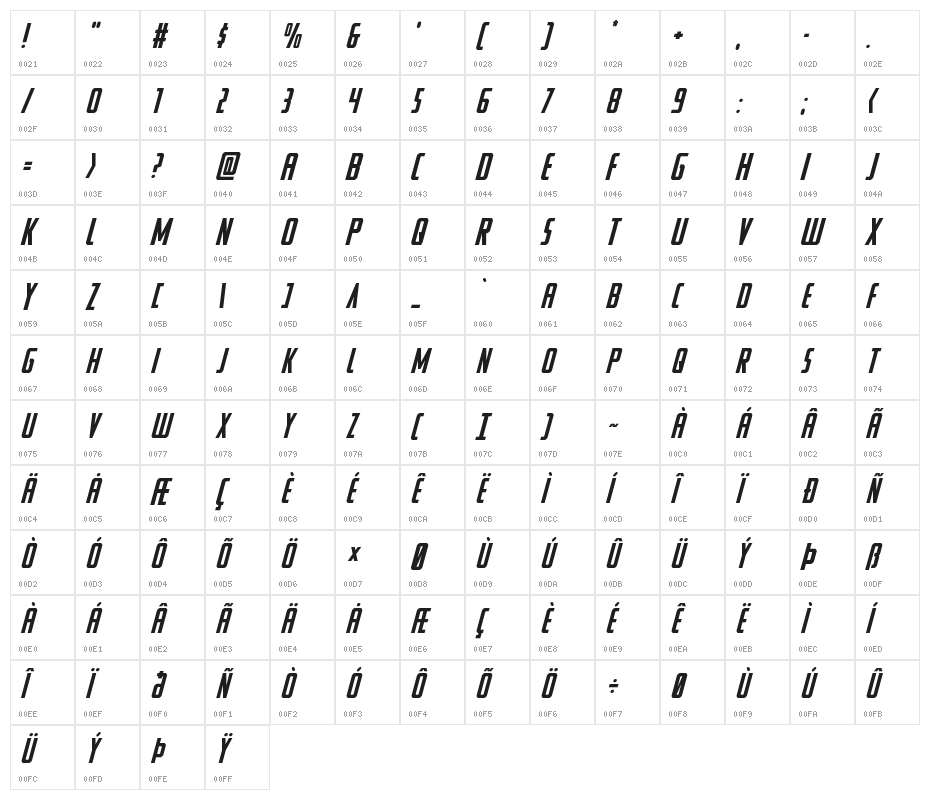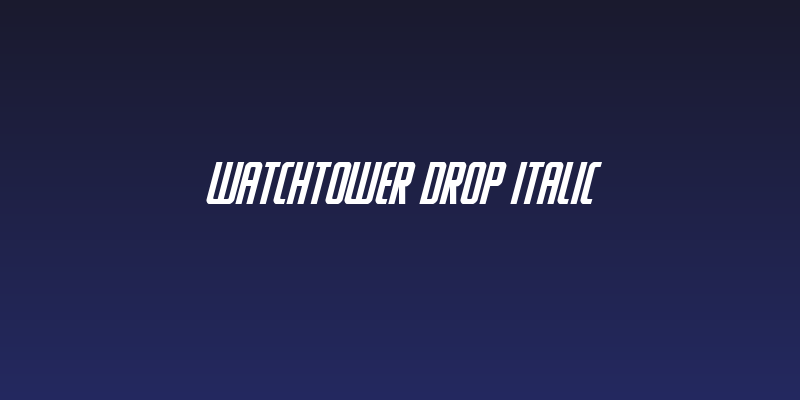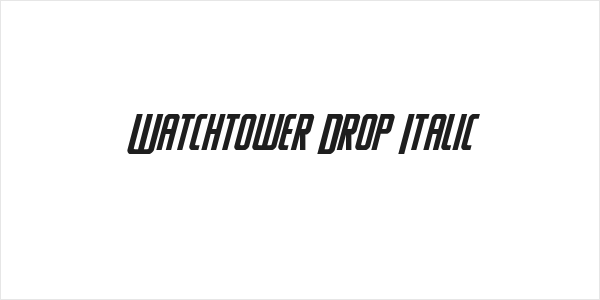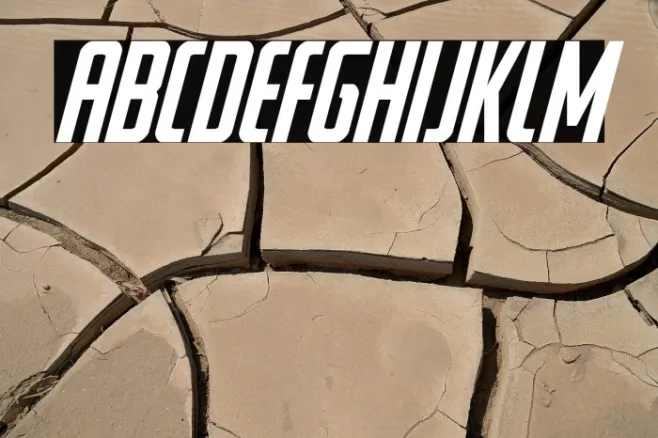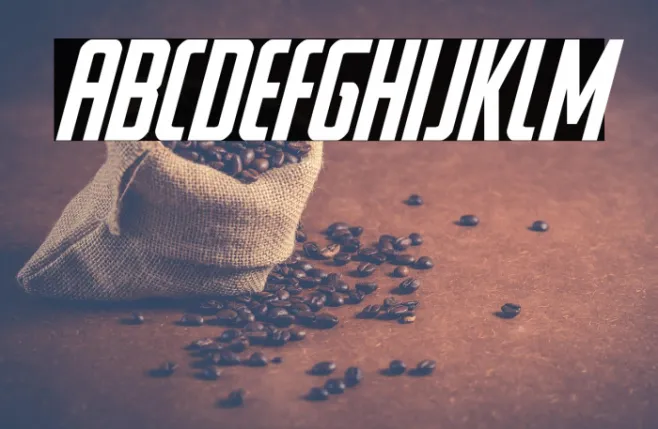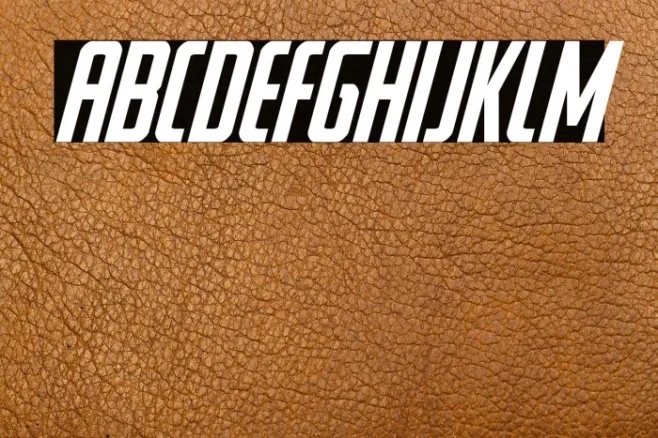
Watchtower Drop Italic Font
Watchtower Drop Italic Description
This font features a bold and dynamic italic style with a strong forward slant, giving it a sense of movement and urgency. The characters are tightly spaced, enhancing its compact and impactful appearance. The strokes are thick and consistent, providing a high level of contrast that makes the text stand out prominently. Its design is modern and sleek, suitable for making bold statements. The uppercase and lowercase letters maintain a uniform style, while the numerals and special characters are crafted to match the overall aesthetic, ensuring a cohesive look across all text elements.
| Proposed Projects | This font is perfect for projects that require a strong visual impact, such as sports branding, action movie posters, dynamic advertisements, and modern logo designs. |